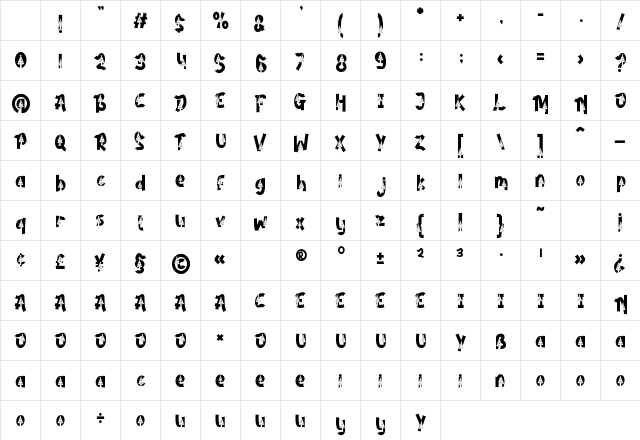
Complete Modern Bauble Bliss Six Regular glyph index. Displaying only characters natively supported by Modern Bauble Bliss Six Regular font.
Modern Bauble Bliss Six is a composed and adaptable typeface that performs quietly and consistently across a wide range of design contexts.